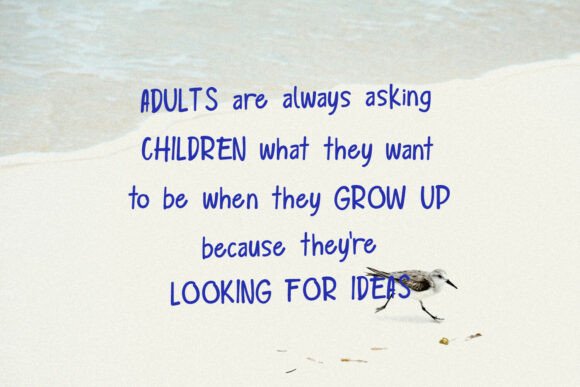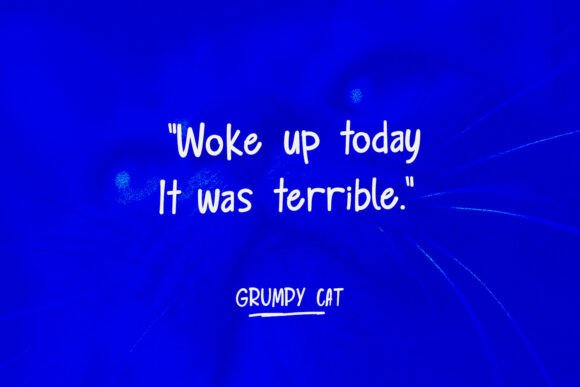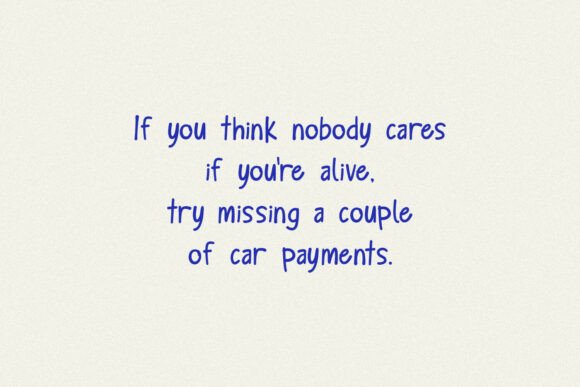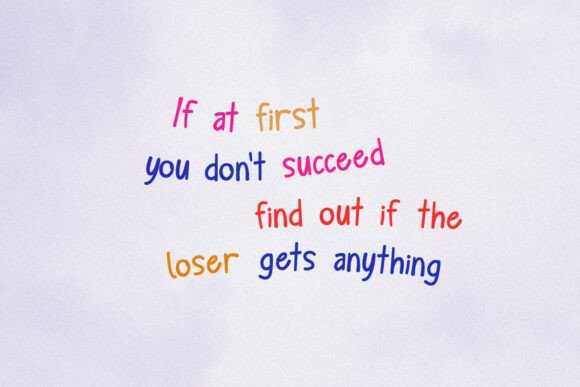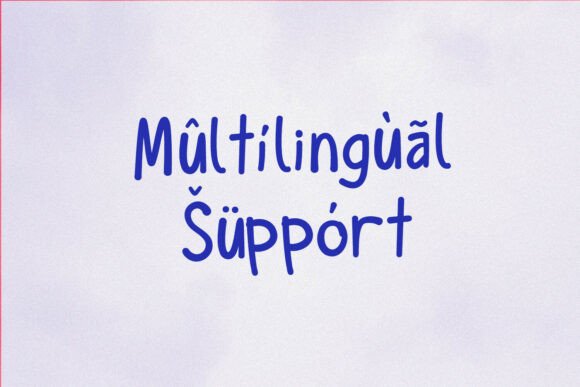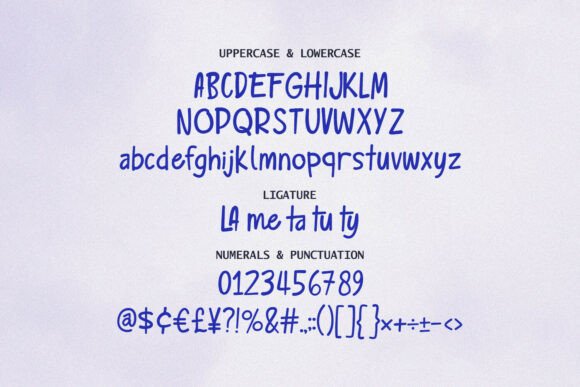
Cametah Font: The Sweet and Friendly Handwritten Font for Your Creative Projects
Are you a designer, crafter, or DIY enthusiast looking for a font that can add a personal touch to your projects? Look no further than Cametah, a sweet and friendly handwritten font that’s perfect for a wide range of designs. With its natural and unique style, Cametah is incredibly versatile and can be used in various creative projects, from digital designs to handmade crafts.
What Makes Cametah Special?
Cametah is a one-of-a-kind handwritten font that’s designed to bring a touch of warmth and personality to your designs. Its natural and unique style makes it stand out from other fonts, and its friendly tone makes it perfect for projects that require a personal touch. Whether you’re creating digital designs, such as social media graphics, blog posts, or website headers, or working on handmade crafts, like invitations, cards, or scrapbooking, Cametah is the perfect choice.
The Benefits of Using Cametah Font
So, what makes Cametah an ideal font for designers and crafters? Here are just a few benefits of using Cametah:
- Unique and eye-catching: Cametah’s natural and unique style makes it a great choice for designers who want to create eye-catching and memorable designs.
- Versatile: Cametah can be used in a wide range of designs, from digital designs to handmade crafts, making it a great addition to any design library.
- Easy to read: Despite its unique style, Cametah is easy to read, making it perfect for body text, headings, and titles.
- Customizable: Cametah can be easily customized to fit your design needs, making it a great choice for designers who want to create unique and personalized designs.
How to Use Cametah Font in Your Designs
Using Cametah in your designs is easy! Here are a few tips to get you started:
- Pair it with other fonts: Cametah pairs well with other fonts, making it easy to create unique and interesting typography combinations.
- Experiment with colors: Cametah looks great in a variety of colors, so don’t be afraid to experiment and find the perfect color to match your design.
- Use it for headings and titles: Cametah’s unique style makes it perfect for headings and titles, adding a touch of personality to your designs.
- Add it to your digital design library: Cametah is a great addition to any digital design library, making it easy to access and use in future designs.
Cametah Font in Crafting and DIY Projects
Cametah is not just limited to digital designs; it’s also perfect for crafting and DIY projects. Here are a few ways you can use Cametah in your crafting and DIY projects:
- Invitations and cards: Add a personal touch to your invitations and cards with Cametah’s sweet and friendly style.
- Scrapbooking: Cametah is a great addition to any scrapbook, adding a touch of personality and whimsy to your pages.
- Handmade crafts: Cametah can be used in a variety of handmade crafts, such as wood signs, jewelry, and other decorative items.
In conclusion, Cametah is a sweet and friendly handwritten font that’s perfect for designers, crafters, and DIY enthusiasts. Its natural and unique style makes it incredibly versatile, and its friendly tone makes it perfect for projects that require a personal touch. With its many benefits, including being unique and eye-catching, versatile, easy to read, and customizable, Cametah is a great addition to any design library. So why not give Cametah a try and see how it can add a touch of personality to your designs?
The only limit is your imagination! With Cametah, the possibilities are endless, and you can create unique and memorable designs that showcase your personality and style.